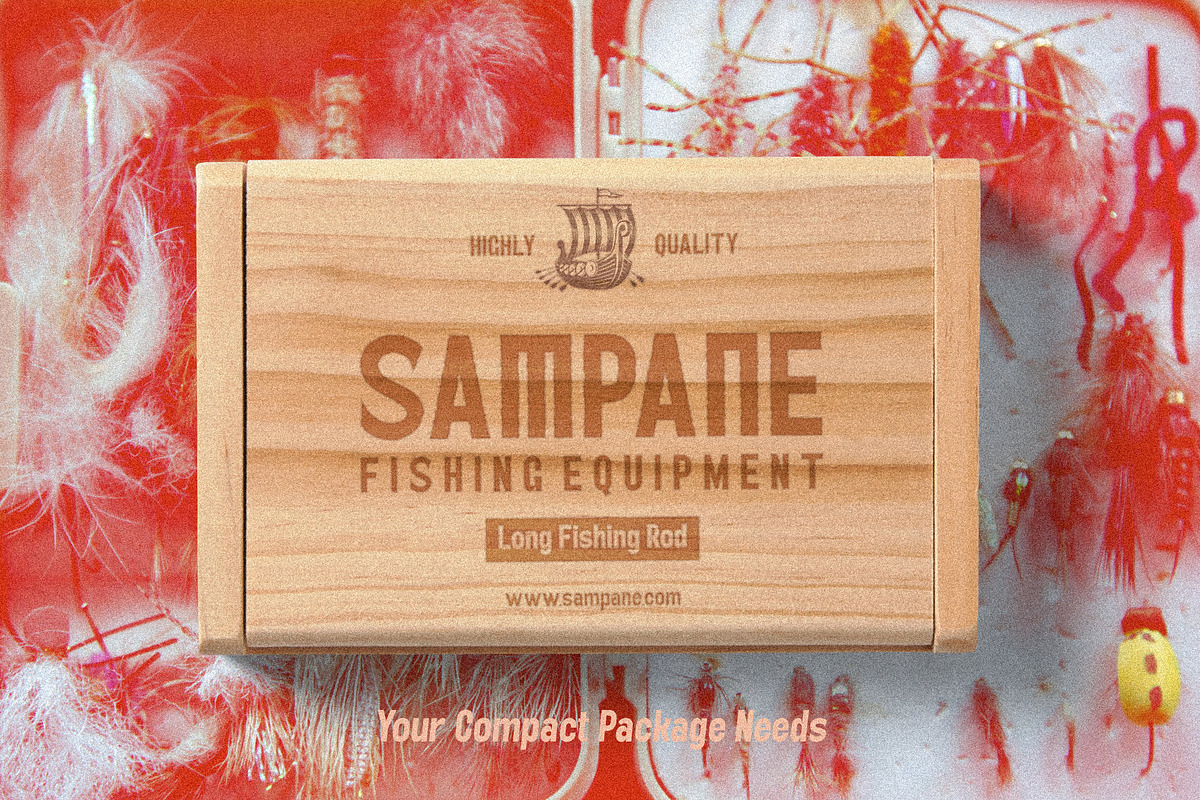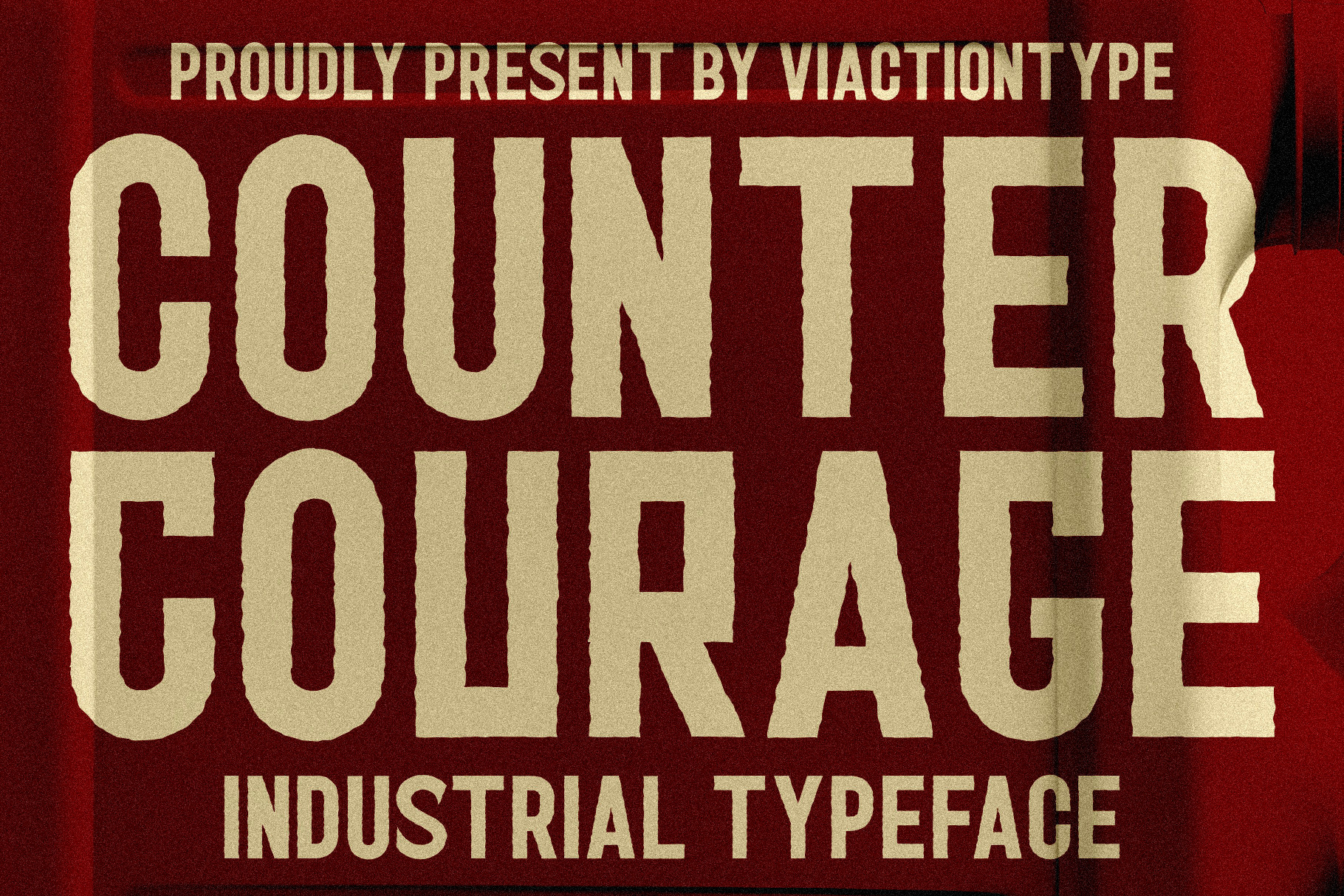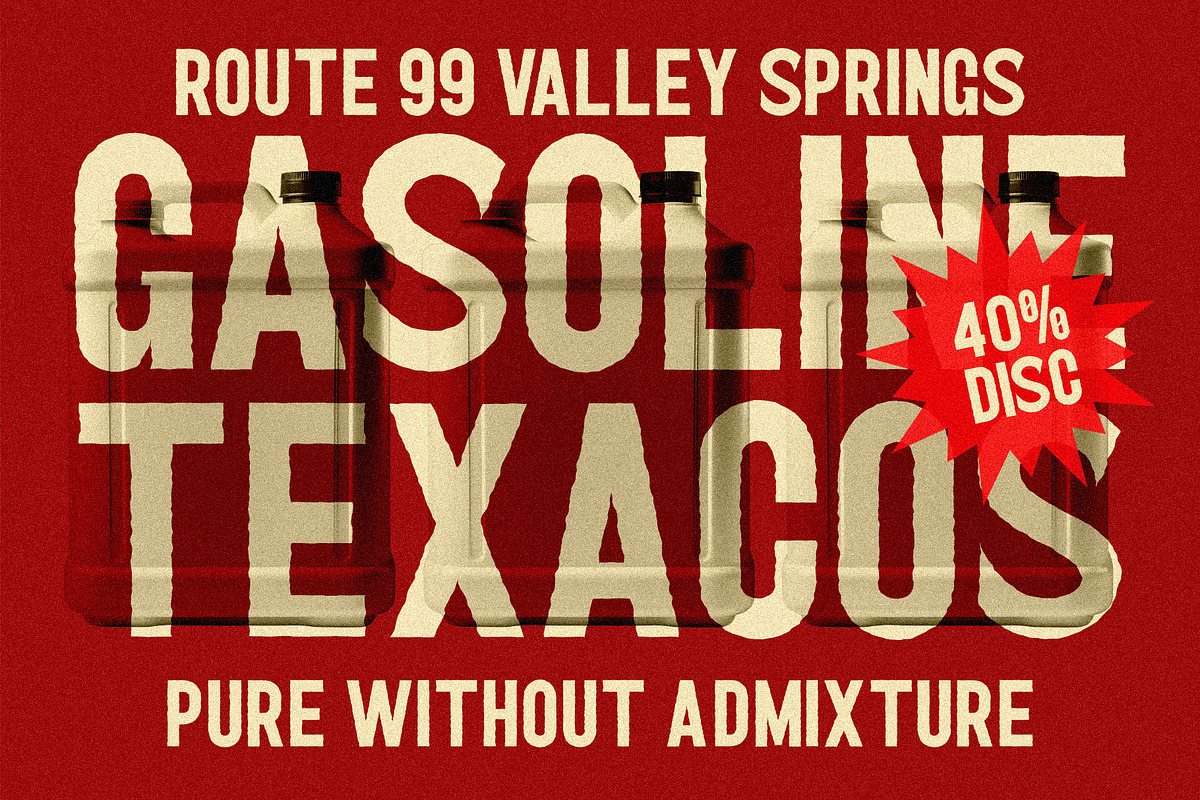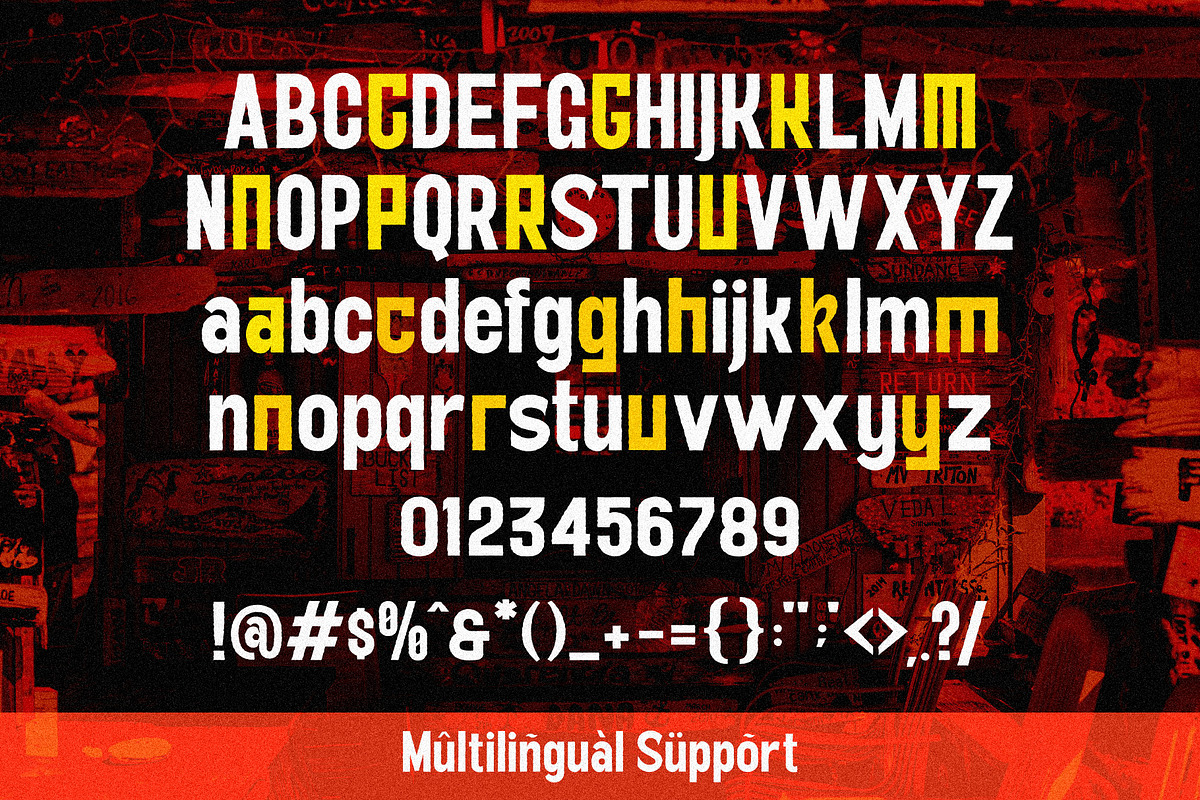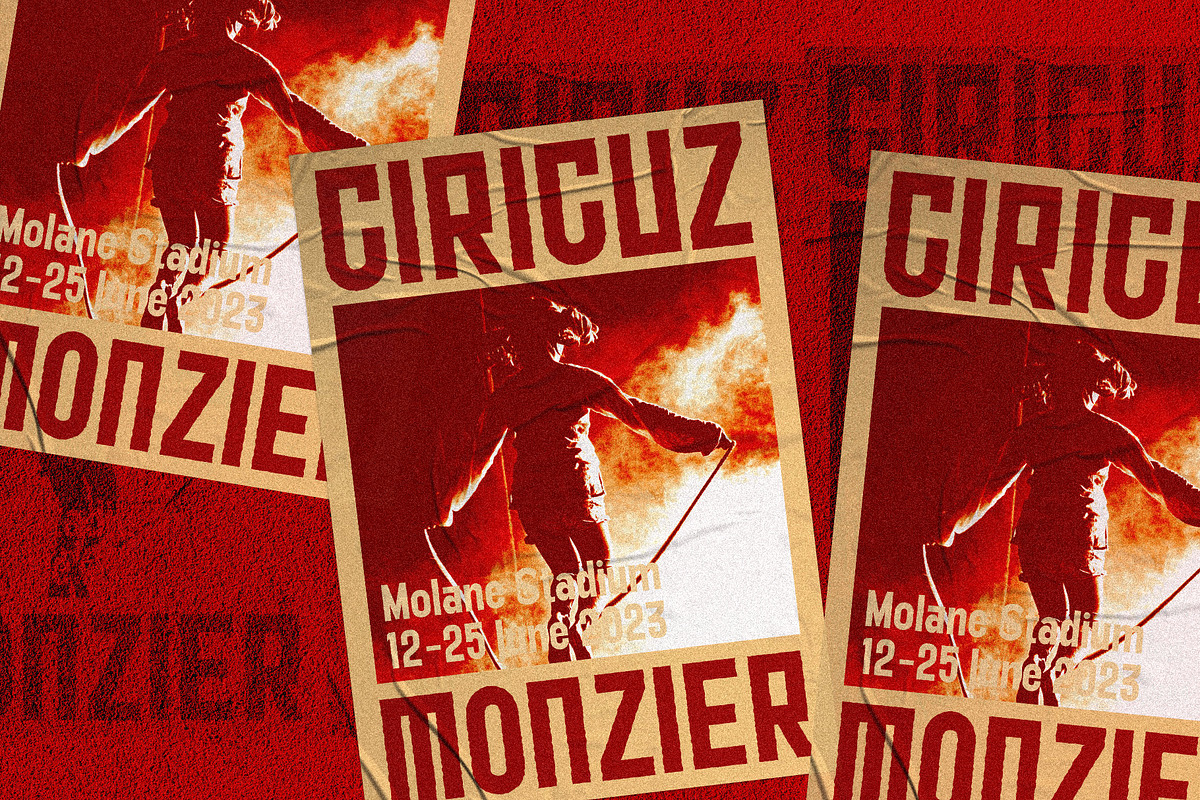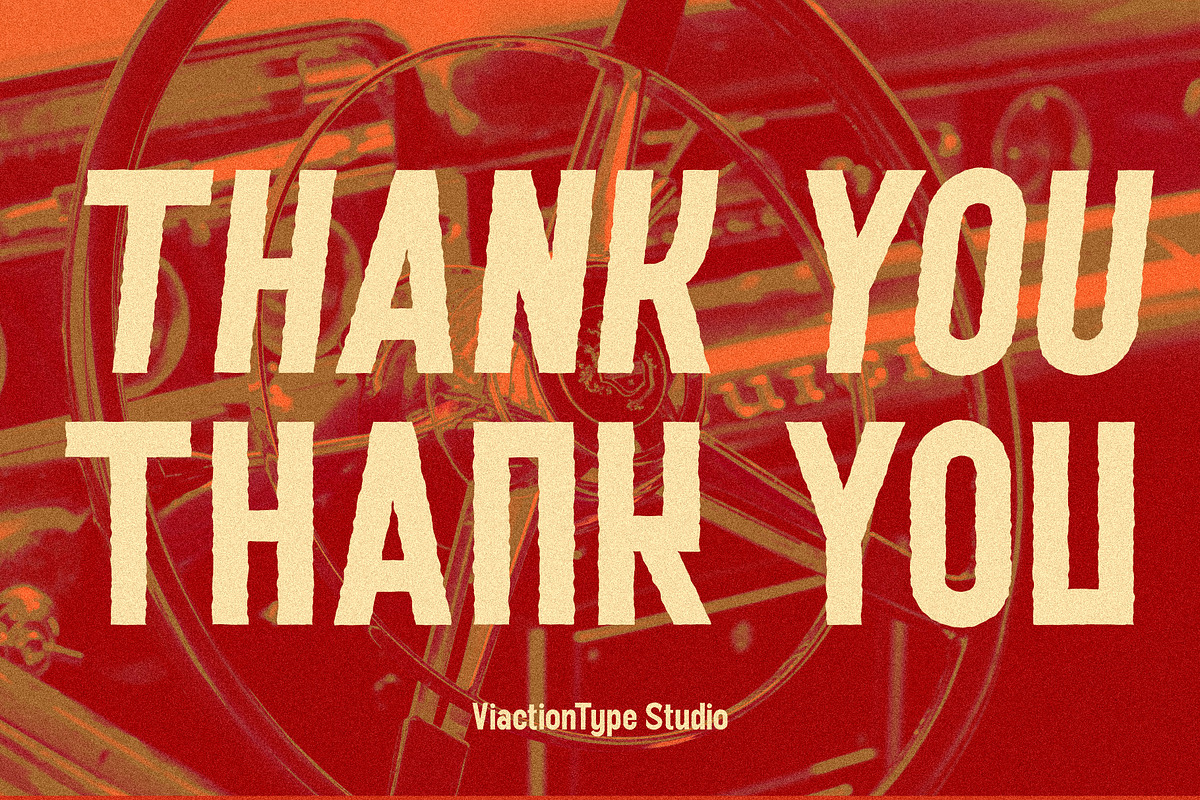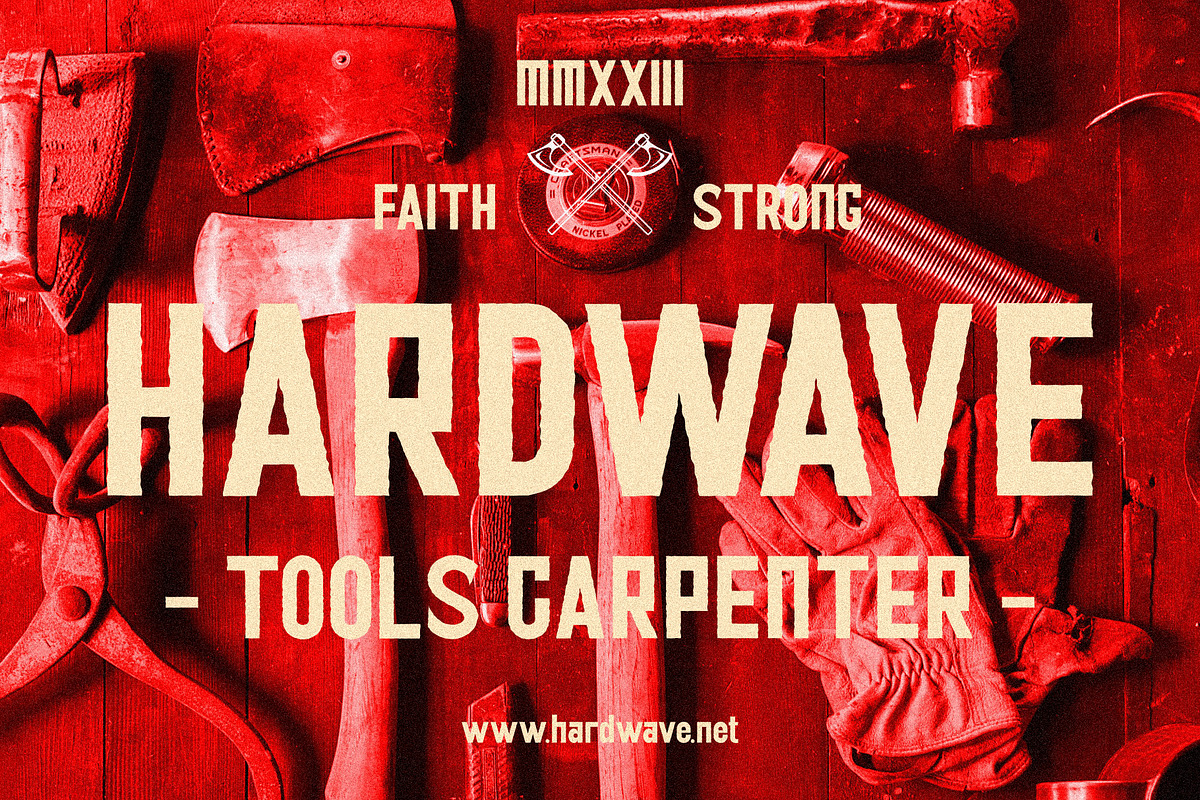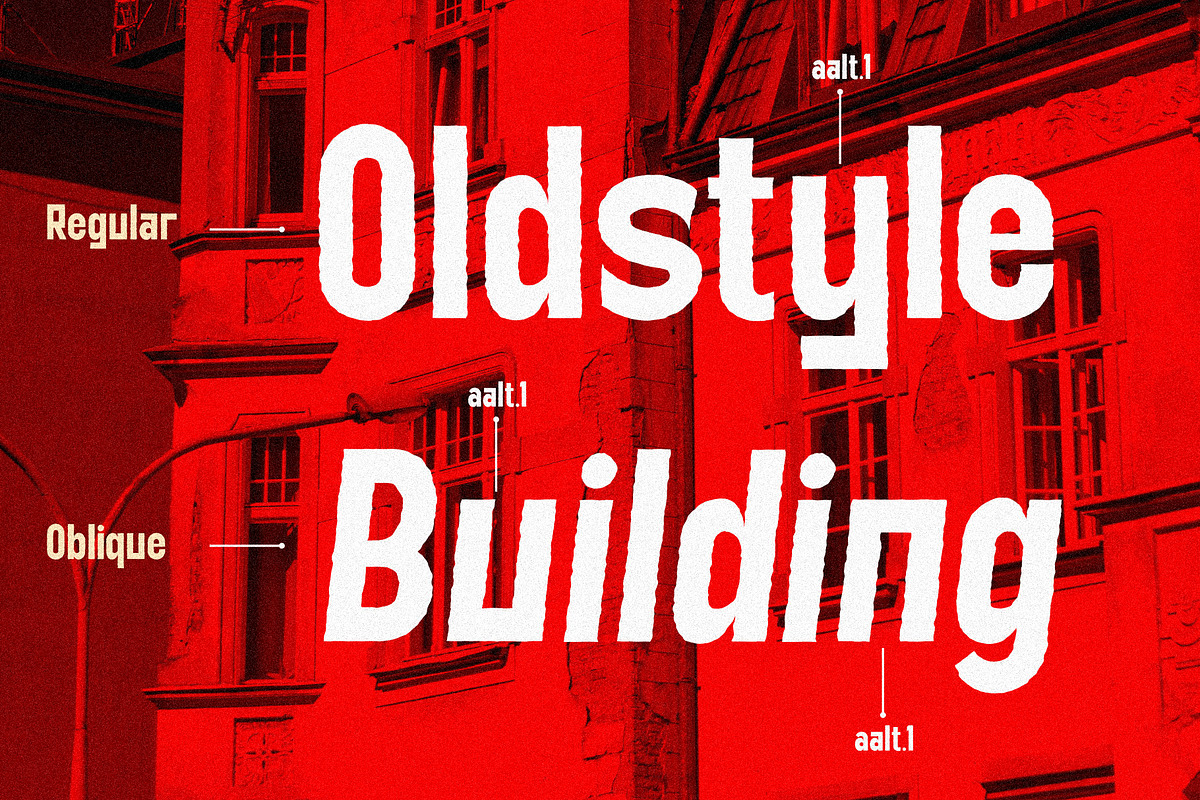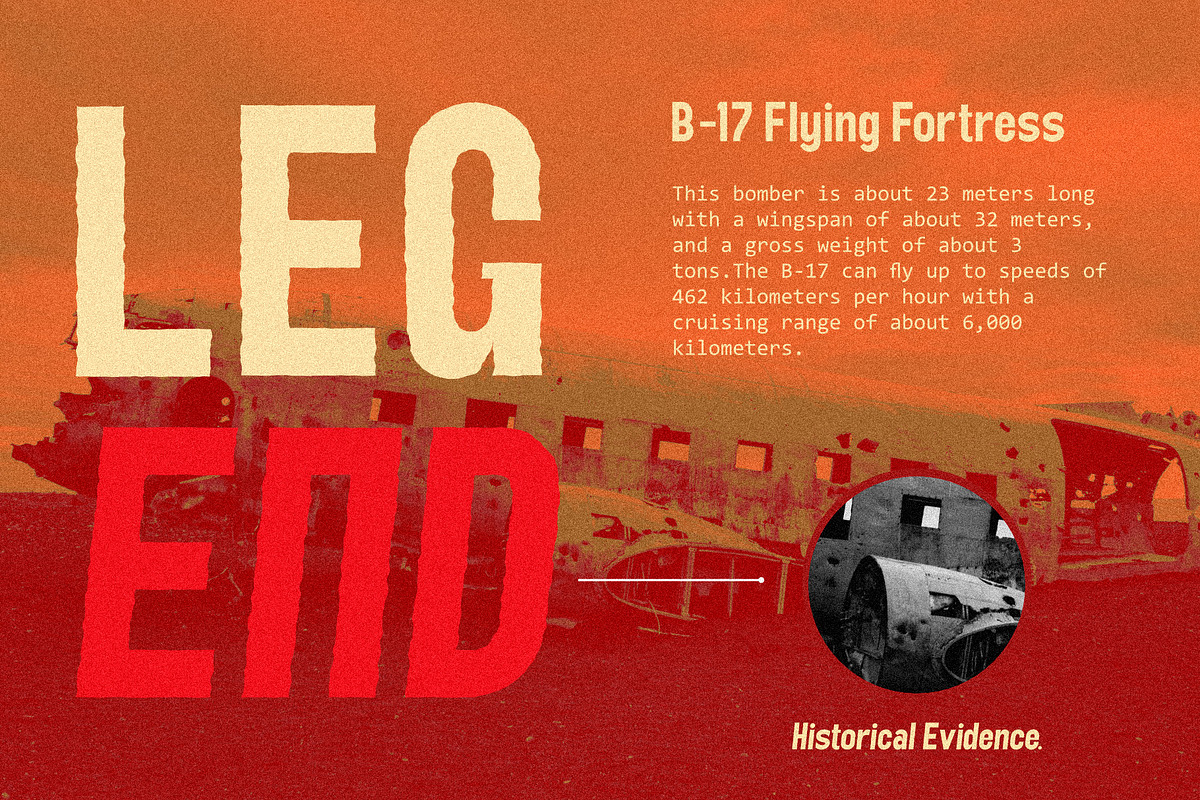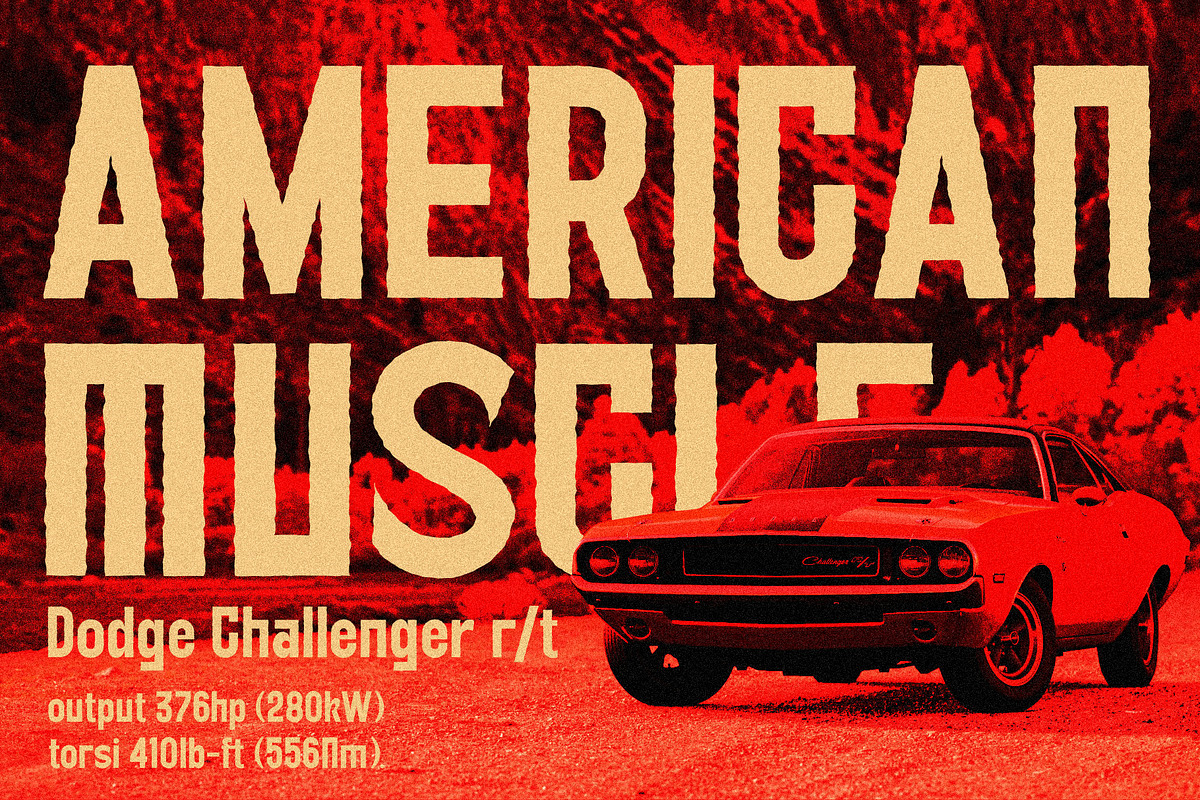
VT Counter Courage - Industrial Font
Introducing Counter Courage, a captivating sans serif font inspired by the raw essence of industrial vintage aesthetics. With its distinctive rough edges and rugged charm, this font brings a sense of authenticity and character to any design project.
Crafted with meticulous attention to detail, Counter Courage offers two dynamic styles: Regular and Oblique. Whether you're aiming for a bold statement or a subtle nod to the past, this font delivers versatility and impact.
Infuse your designs with a touch of nostalgic flair as you evoke the spirit of vintage industrialism. Ideal for branding, posters, signage, and more, Counter Courage adds a unique edge to your creative endeavors.
Embrace the timeless appeal of industrial vintage with Counter Courage font today, and let your designs stand out with rugged sophistication.